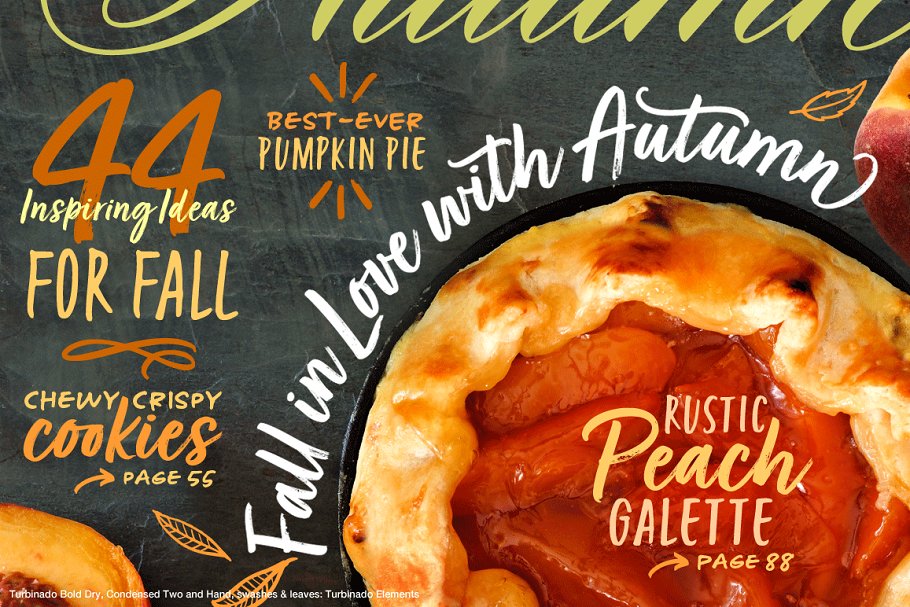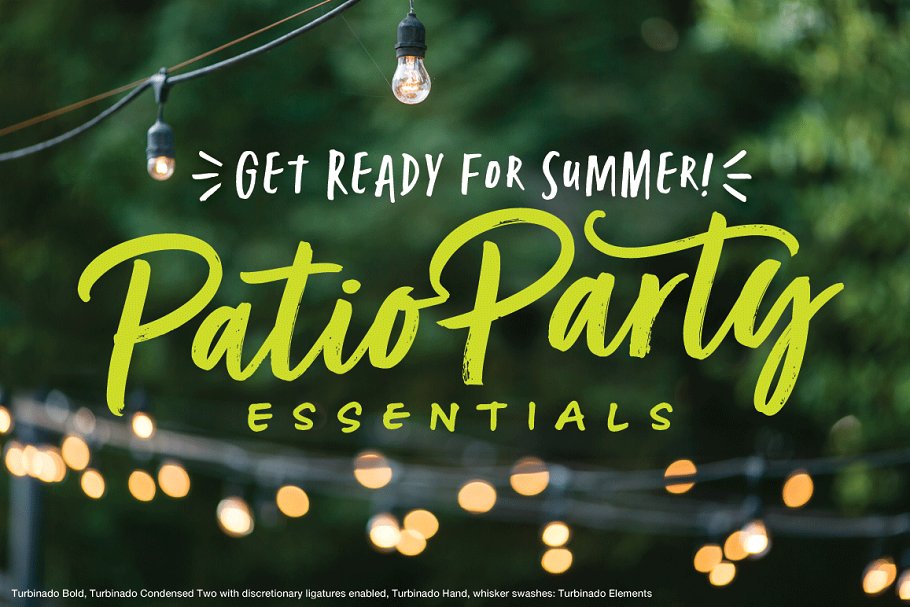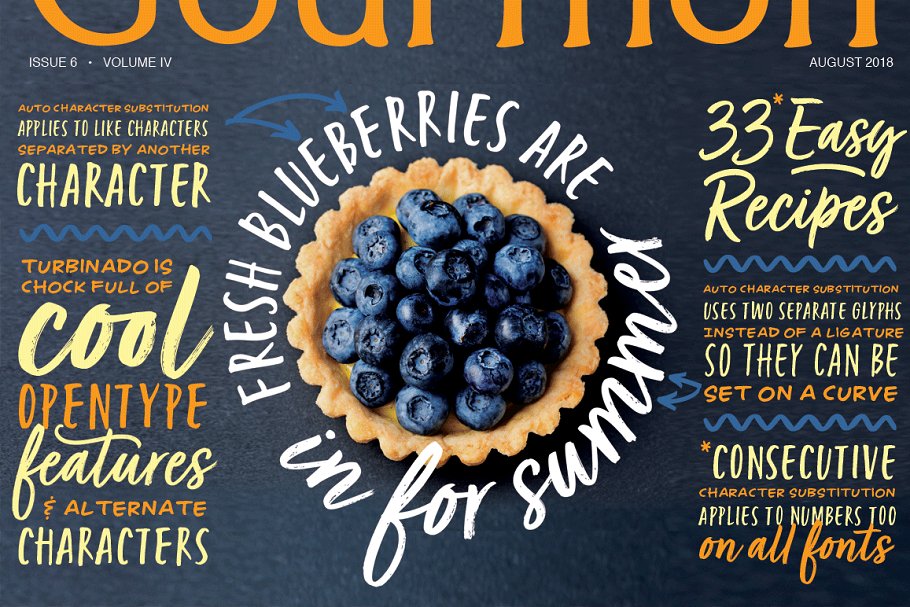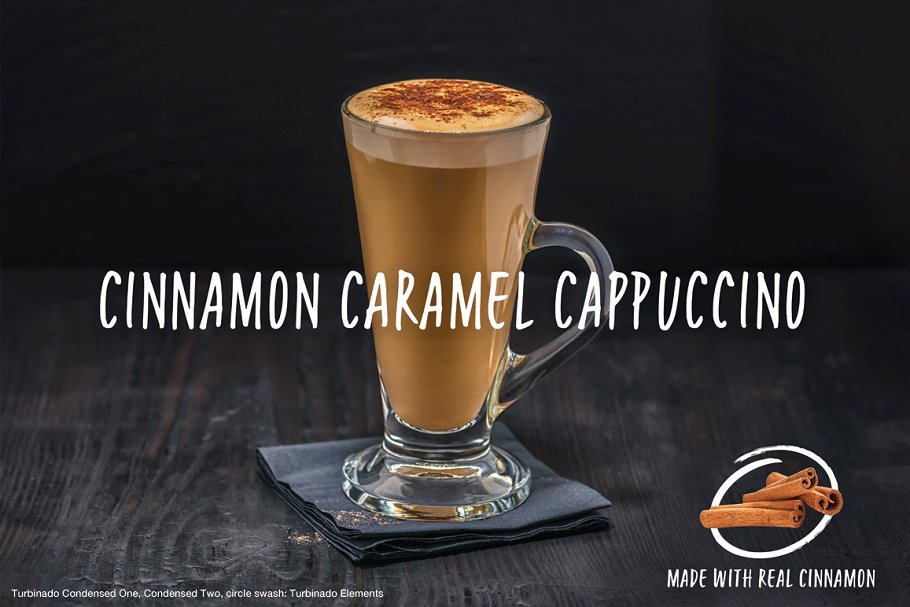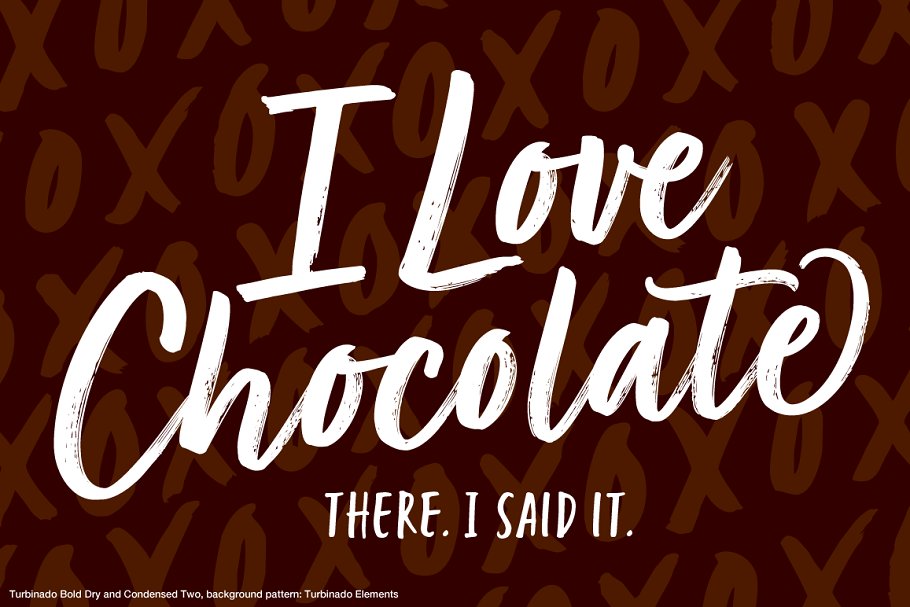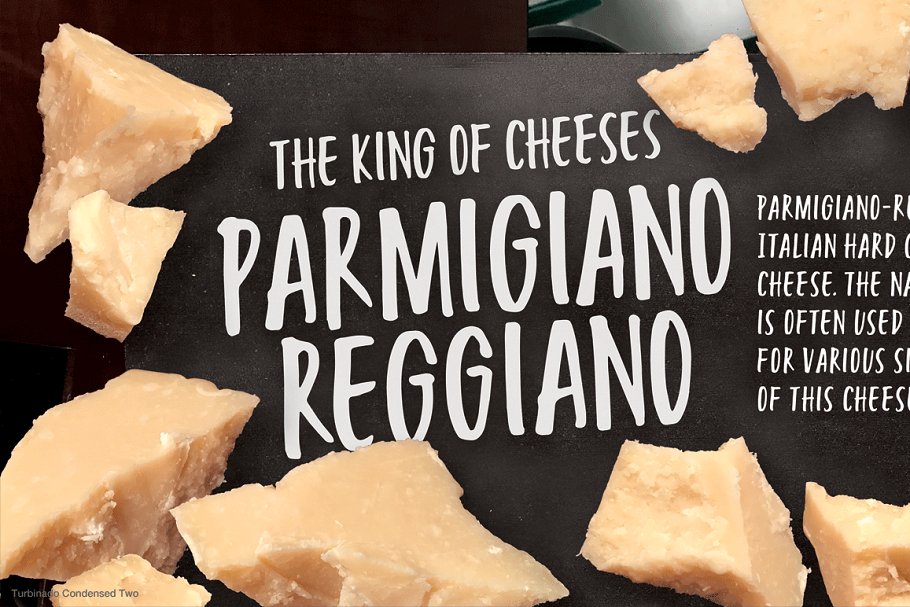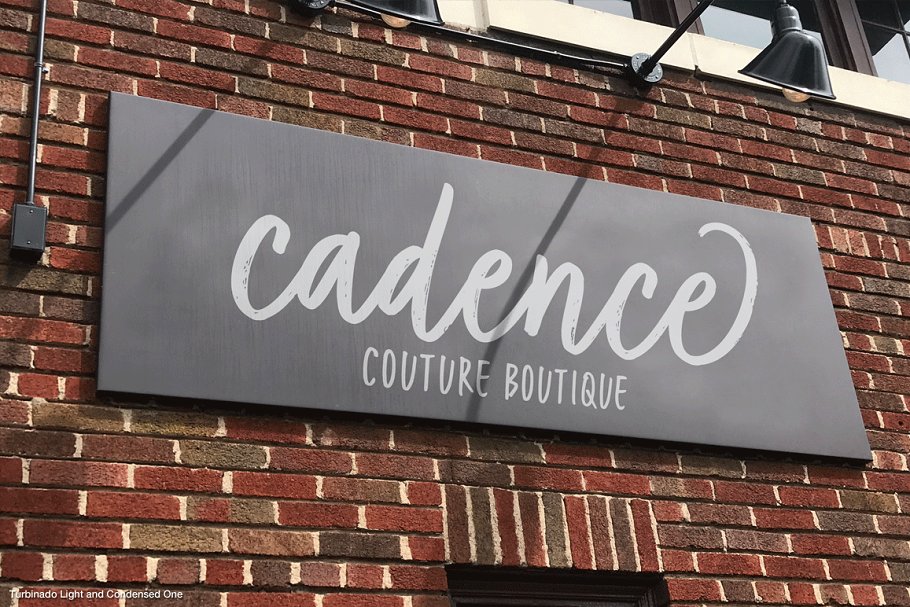
About the Turbinado Set
com/Q2mGGoThe Turbinado™ Set was designed to be clear and easy to read with a friendly personality, ideal for advertising and packaging in both text and display settings, It has nine typefaces and an elements package all designed to work together, Included are three weights of brushed casual script, each with a dry version, two condensed all caps faces, another hand printed caps face and a set of over 100 brushed elements that include swashes, botanicals, shells, arrows, repeatable patterns and a few other doodads that also play well with the fonts
The script fonts have alternate characters including swash glyphs for ends of words, and like all of my script designs, I’ve taken care to ensure that connections are smooth between all possible character combinations, All of the fonts use the OpenType standard ligature feature to automatically differentiate consecutive lowercase letters—and numbers—but using separate glyphs, rather than a single ligature so they can be set on a curve or colored separately, etc
Taking it a step further, all of the Turbinado fonts also automatically differentiate like characters that are separated by another letter when standard ligatures is enabled, And it has a few ligatures too, like using a single crossbar to unite the At and Att letter combinations
The two condensed faces have a third set of less uniform glyphs that can be used to create a more quirky, fun and bouncy effect (see the ‘she sells seashells’ graphic above) when the discretionary ligature feature is on, I’ve included a couple other nifty (I think) features too, including smart apostrophes, so that script characters still connect when an apostrophe is used between them in common situations, and try typing a and a 3, it may come in handy sometime ;)The script fonts have 10+ lowercase t (and double t) crossbar alternates that can be selected from the OpenType glyph table manually, or you can enable the contextual ligature feature to automatically insert a bigger crossbar as the surrounding letters allow throughout a text box or document